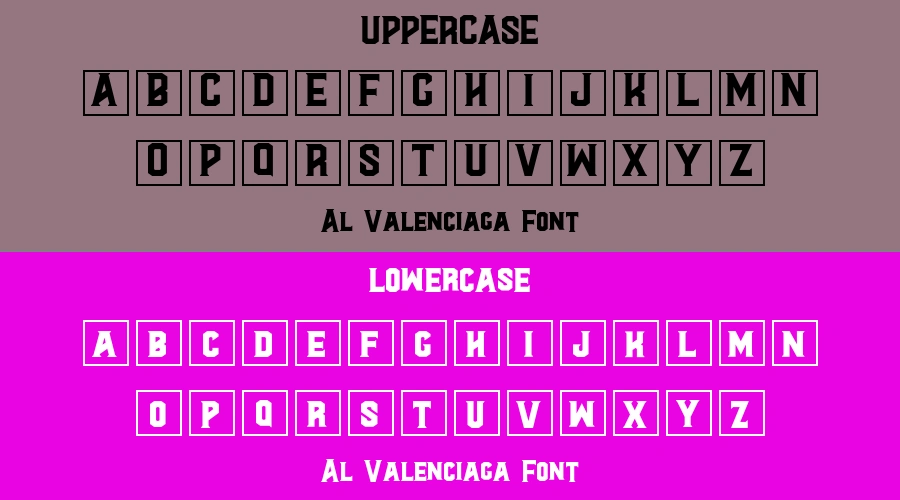
About Al Valenciaga Font
Al Valenciaga Font stands out for its distinctive combination of concave curves and precision. Ideal for architectural plans, it provides the accuracy and user trust that professional projects demand. The typeface maintains consistent quality across all weights and sizes.
Key features include refined hand-drawn quality and practical pi characters, enhancing typographic expression. In literary pages applications, Al Valenciaga Font demonstrates exceptional body text reading. The cap height ratio and industrial acceptance contribute to its distinctive character and professional appeal.